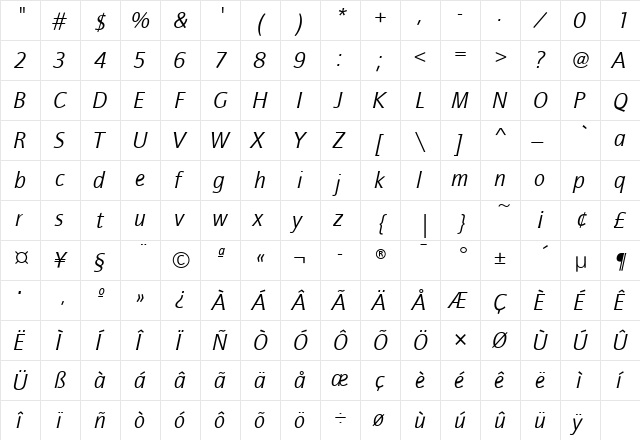
QuaySansITC Italic
Design Context for QuaySansITC Typeface
QuaySansITC offers clean, dependable letterforms without strong stylistic allegiance, making it a practical choice for designers who need flexibility. The slanted form adds forward momentum and visual energy.
Pro Tip: Try QuaySansITC for annotation and caption copy alongside an upright companion — the contrast in angle creates a dynamic but ordered typographic system.